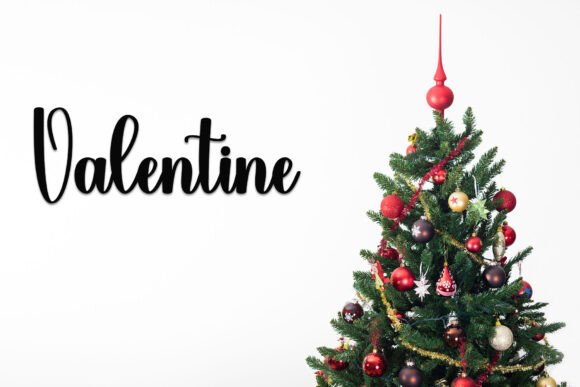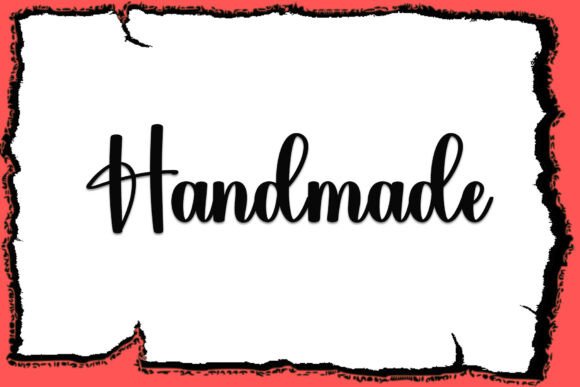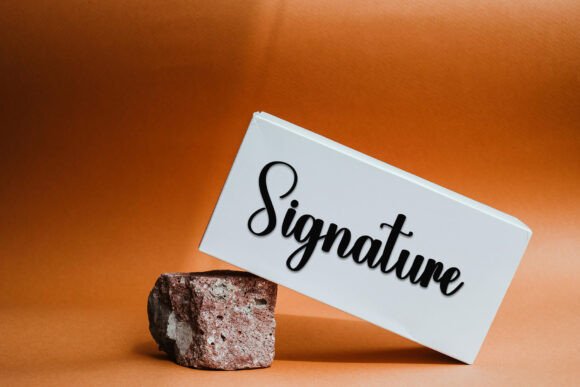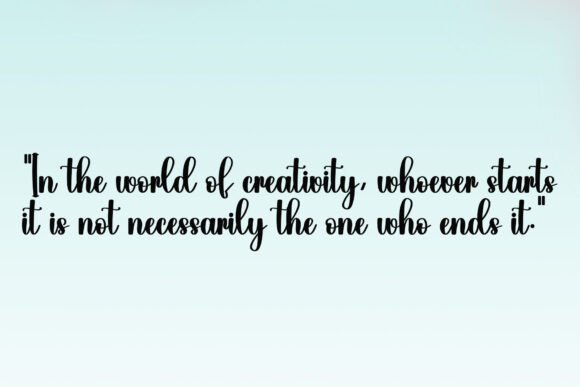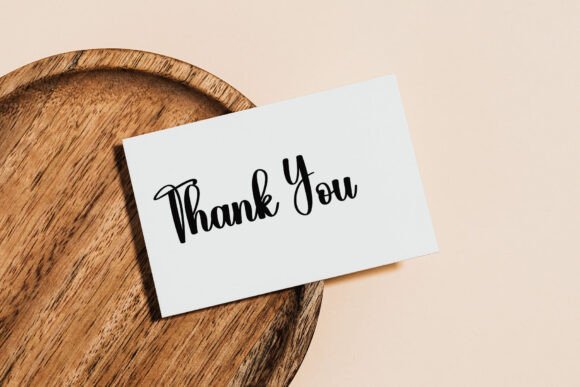
Introduction to Mama Claus Font
As you’re brainstorming ideas for your next creative project, you might find yourself stuck on the perfect font to give it that extra oomph. Remember the feeling of excitement when you finally stumble upon the one that makes everything fall into place? It’s like the whole design just comes alive. For many designers, this moment is a game-changer – and it’s exactly what the Mama Claus Font is designed to provide.
With its elegant, handwritten style, the Mama Claus Font brings a touch of timeless sophistication to any design. Whether you’re working on a free download project or a high-quality commercial campaign, this font is sure to elevate your creative vision. And the best part? It’s a valuable addition to any designer’s toolkit, offering a versatile and high-quality design resource that’s perfect for a wide range of projects.
Mama Claus Font
- Font size: 1000 glyphs, with a comprehensive set of characters
- Unique, festive design inspired by traditional holiday imagery
- Perfect for adding a touch of whimsy to your holiday-themed design project
Honest Review: Mama Claus Font
As a designer, I’m always on the lookout for high-quality fonts to elevate my creative projects. Recently, I had the chance to try out the Mama Claus Font, and I’m excited to share my honest review with you.
Here’s what I loved about the Mama Claus Font: ✨ It’s a beautifully crafted, free download that’s perfect for festive designs, such as Christmas cards and holiday promotions. The font is available in various styles, including bold and italic, making it easy to add some visual interest to your designs. The high-quality design is evident in every detail, from the intricate lettering to the transparent background options.
However, I did encounter a few limitations: ⚠️ The font may not be suitable for formal or professional designs, as it’s more geared towards playful and creative projects. Additionally, the font may not be compatible with all design software, so be sure to check compatibility before downloading.
Overall, I’m impressed with the Mama Claus Font, and I would definitely recommend it to designers looking for a fun and festive font for their creative projects. It’s a great addition to any design resource library, and I’m sure it will become a go-to font for many designers.
- Available in various styles (bold, italic, etc.)
Mama Claus Font
Tips for Getting the Most Out of Mama Claus Font
For the best results, use Mama Claus Font on a transparent background to give your design a clean and modern look. You can also experiment with different font sizes and styles to create a unique visual effect.
Common Use Cases for Mama Claus Font
Mama Claus Font is perfect for holiday-themed designs, such as Christmas cards, gift tags, and party invitations. It’s also great for creating festive social media graphics and marketing materials.
Mama Claus Font Alternatives
1. Jolly Santa Font
The Jolly Santa Font is a high-quality, free download that’s perfect for creating a festive atmosphere in your designs. It features a transparent background, making it ideal for overlaying on images or using as a design element in your creative project. When to use: For a more casual, playful feel in your design.
Compared to Mama Claus Font, Jolly Santa Font has a more laid-back and fun tone, making it suitable for designs that require a lighthearted touch.
2. Christmas Carol Font
The Christmas Carol Font is a classic design resource that exudes a sense of nostalgia and tradition. It’s a high-quality font that’s perfect for creating a warm and inviting atmosphere in your designs. When to use: For designs that require a sense of history and tradition.